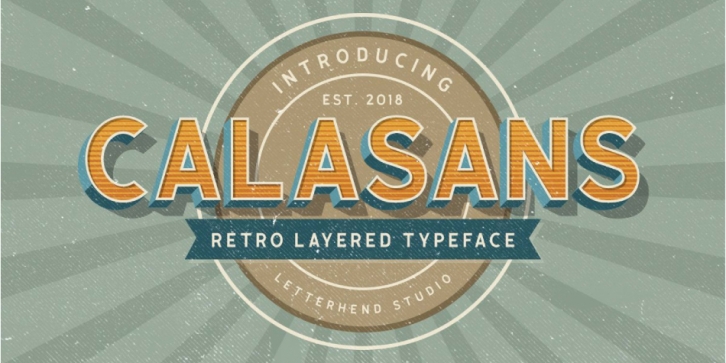
Designed by Hendry Juanda, Calasans is a display sans font family. This typeface has seven styles and was published by Letterhend Studio.
Introducing, Our new brand layered font, Calasans!
Calasans is a sans serif font with 7 layered style. You can create 3D look without using any addons, only with fonts! This font is suitable for a vintage poster, 3d type, or retro Including number and punctuations, also support multi language. Create your own 3D type now!
Inside·
Outline·
Stripe·
Solid·
Dark Extrude·
Extrude·